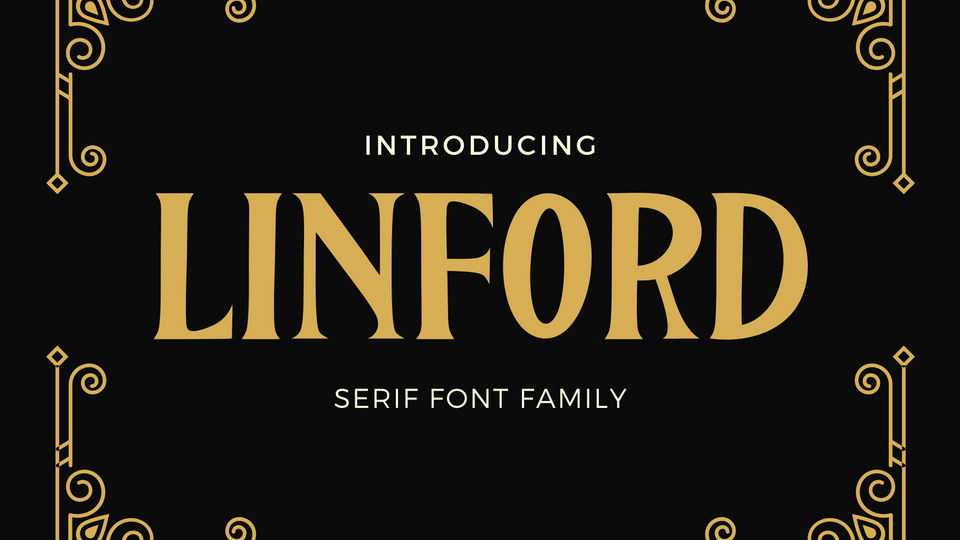
Download Linford font, an elegant serif typeface with a handcrafted vintage feel. Linford is perfect for all your work, posters, badges, logos, prints and more.